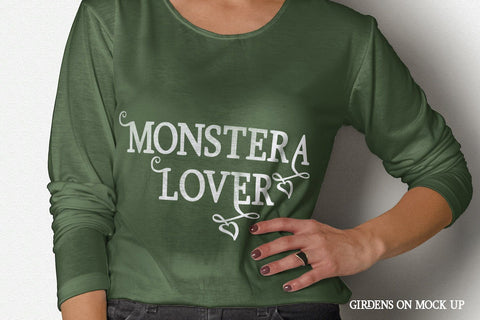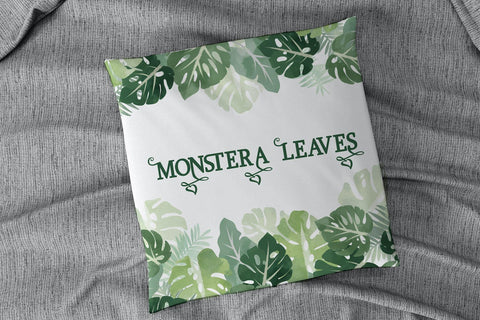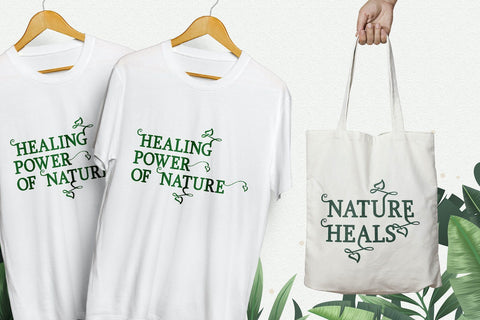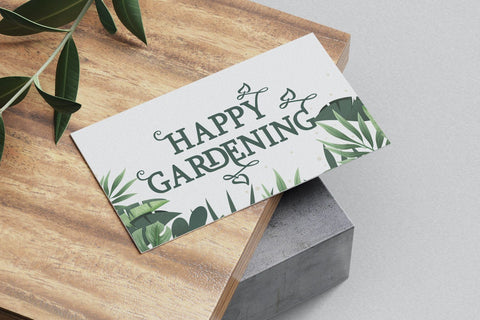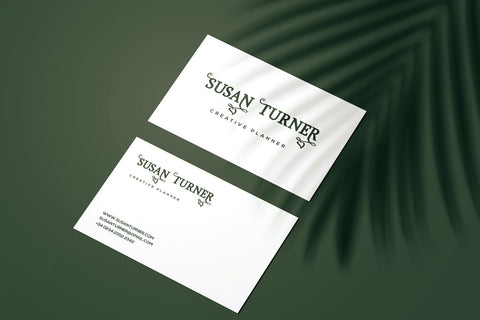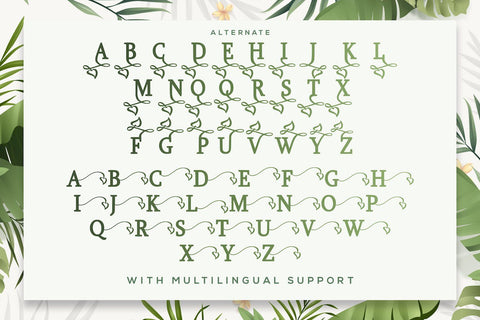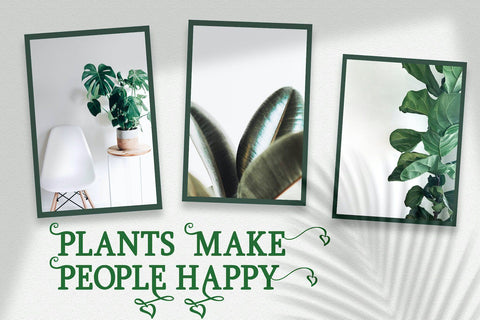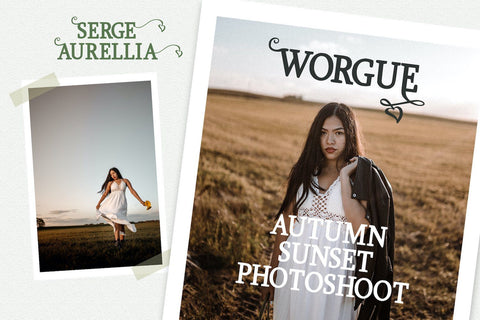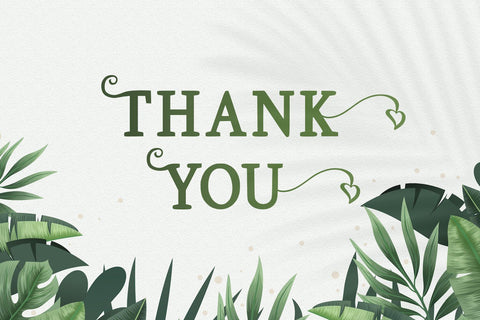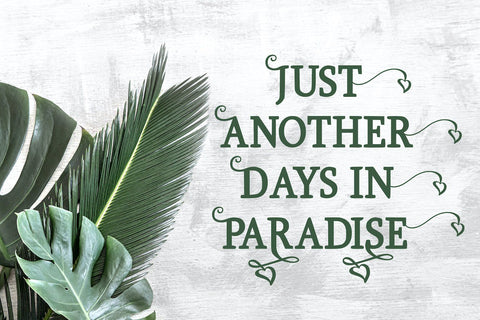
Girdens - Decorative Serif Font
Introducing Girdens - Decorative Serif Font
Girdens is a unique, elegant and modern serif font. This playful typeface will look truly outstanding in a wide range of contexts.
- Stylistic Alternates